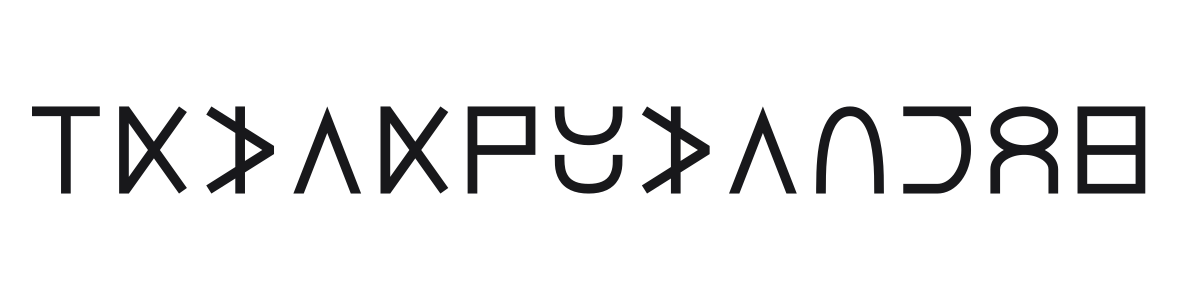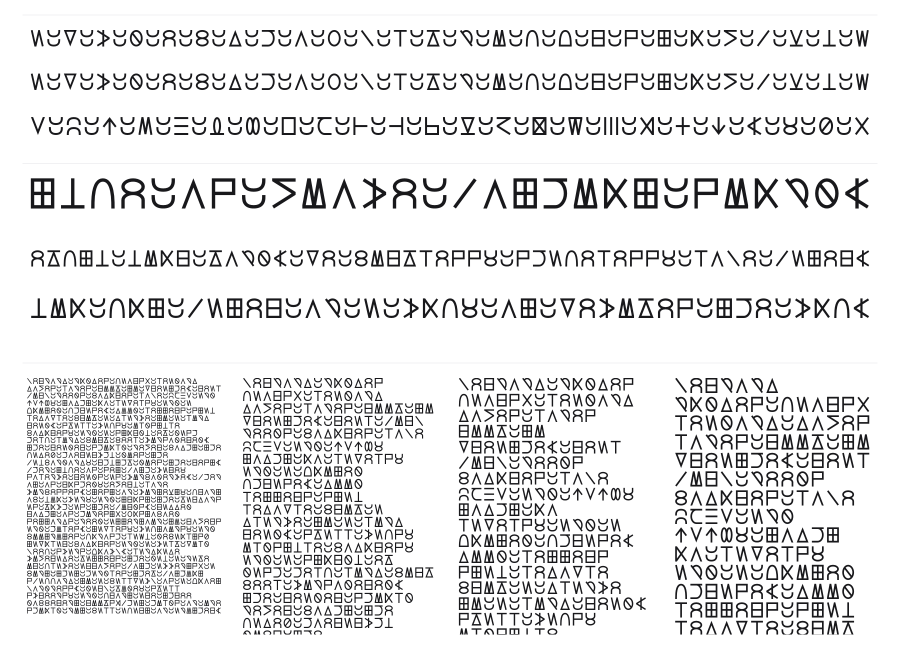
Lucius Cipher
Lucius Cipher is a geometric symbol typeface built from modular primitive shapes to read as an invented or encrypted writing system. Each character is assembled from triangles, squares, arcs, and angular segments with completely uniform stroke weight. It works for logos, game UI, worldbuilding projects, or any context that needs a legible-looking script that isn't actually legible.